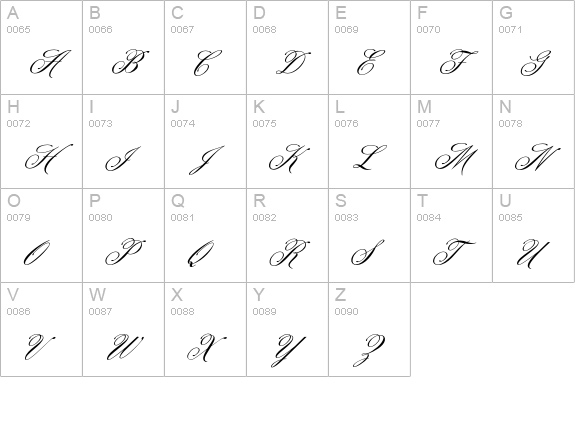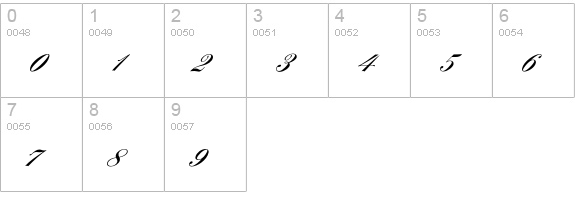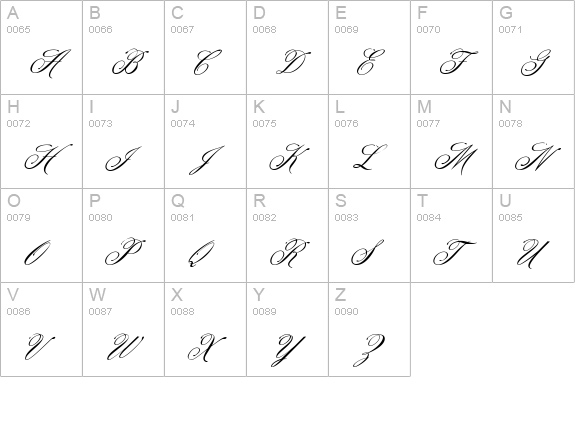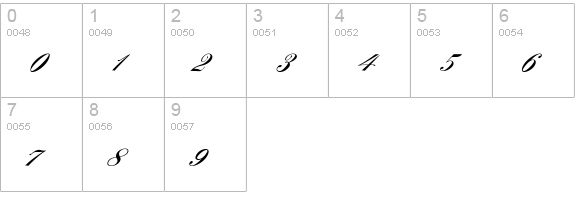
Cellicia Script Font Details
Cellicia Script is a beautifully crafted font that exudes elegance and sophistication. With its flowing lines and delicate curves, this script font is perfect for adding a touch of charm to your designs. Whether you're working on invitations, branding materials, or social media graphics, Cellicia Script will elevate your project to the next level. The font features a wide range of glyphs and ligatures, giving you plenty of options to create unique and eye-catching designs. Its versatility makes it suitable for a variety of projects, from wedding invitations to logo design. Best of all, Cellicia Script is available for free download at FontsMarket.com. So go ahead and give your designs a touch of elegance with this stunning script font.